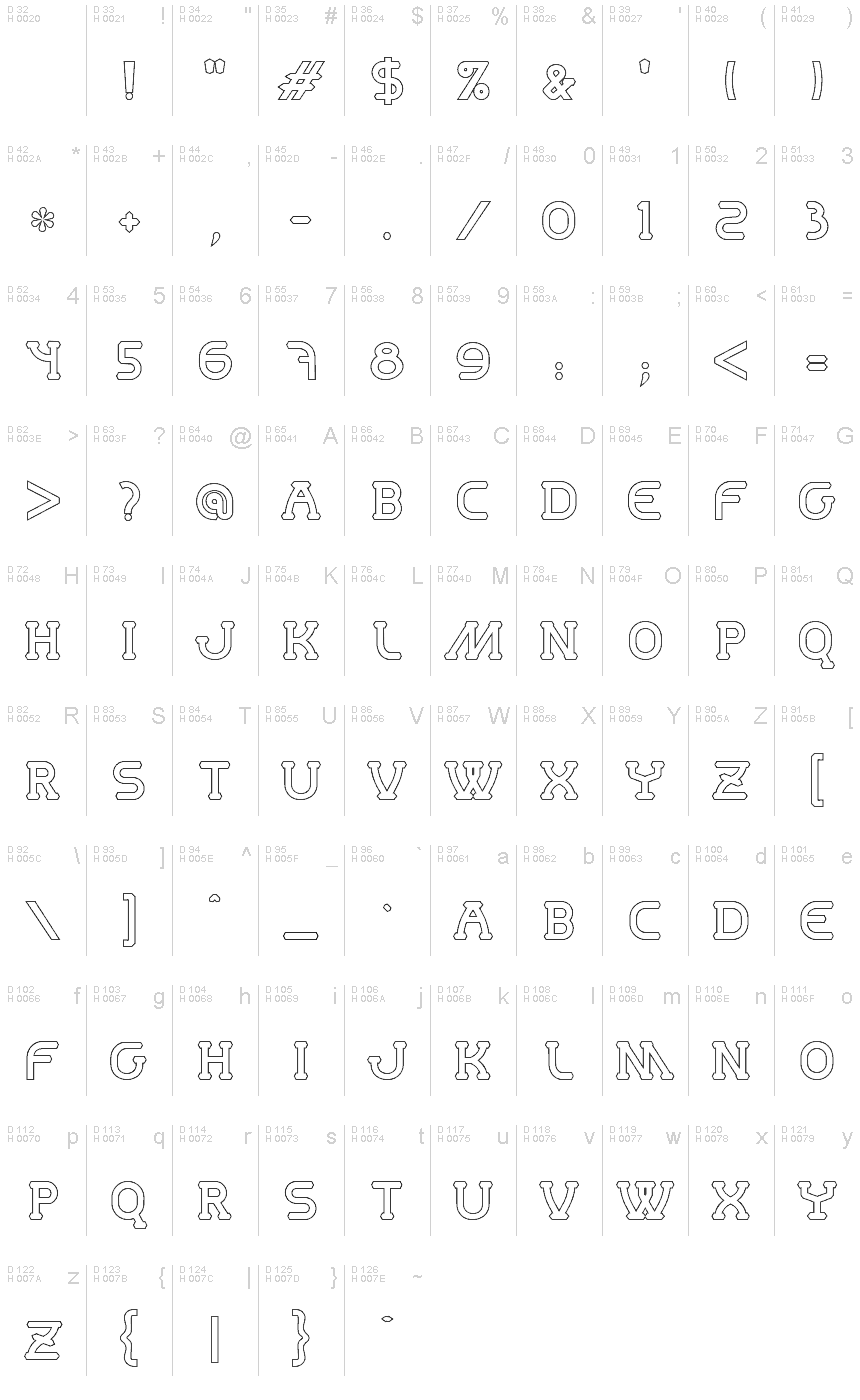
MastumHollow
Mastum Hollow, a striking and captivating display font designed by Max Infeld of Xerographer Fonts, exudes a captivating allure. Its outlined aesthetic creates a delightful sense of depth and dimensionality, lending an air of sophistication and elegance to any design. The bold, geometric forms and clean lines establish a strong, impactful presence, making it an excellent choice for attention-grabbing headlines, logotypes, and branding applications.
Mastum Hollow's versatility shines through, offering designers a versatile tool for a wide range of projects. Its distinct personality lends itself well to modern, minimalist designs, as well as more expressive, artful compositions. Whether crafting eye-catching promotional materials, designing striking posters, or elevating the visual impact of digital interfaces, Mastum Hollow's unique character is sure to leave a lasting impression.